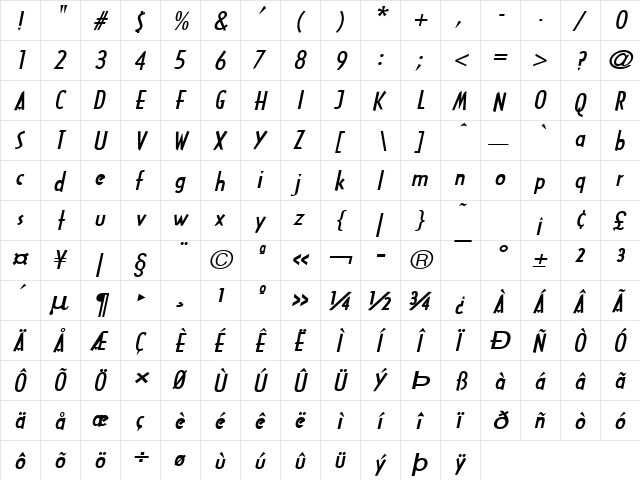
Tech-Extended Bold Italic Font Preview
Design Context for Tech-Extended Typeface
Tech-Extended channels digital-age aesthetics through its sharp, structured letterforms — ideal for brands that want to signal innovation. The slanted form adds forward momentum and visual energy. Its bold stroke weight gives it real presence on the page.